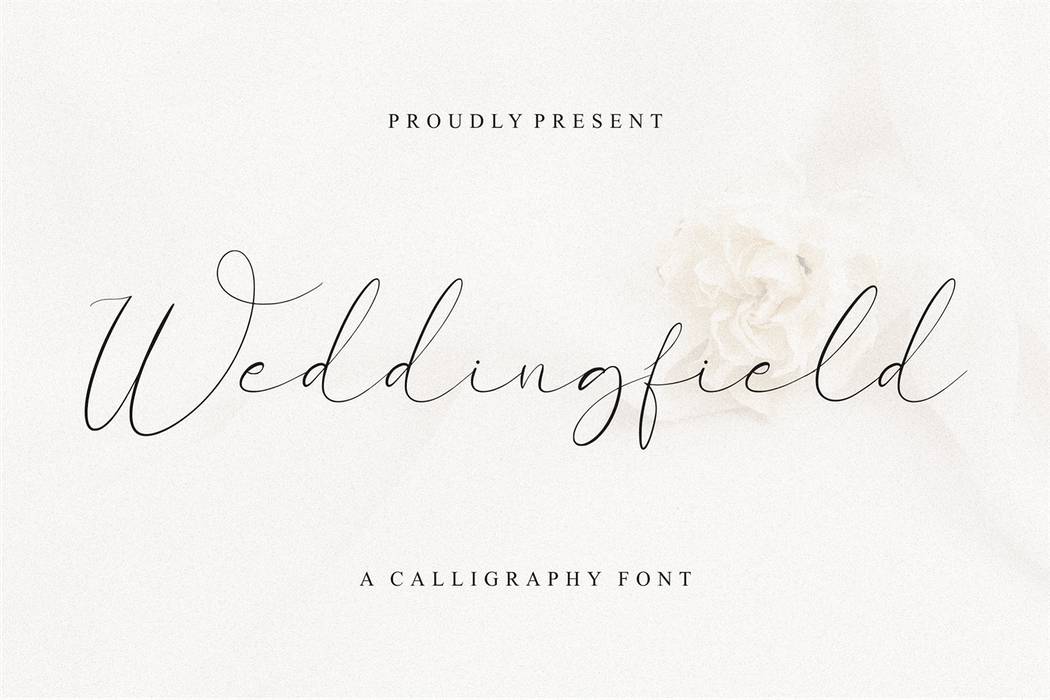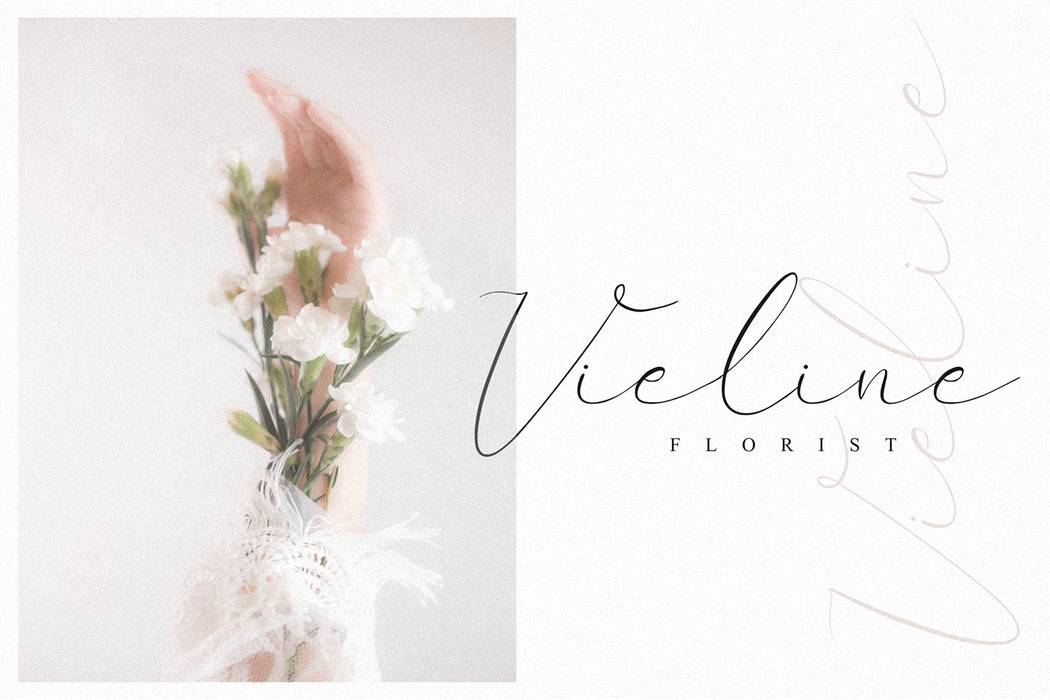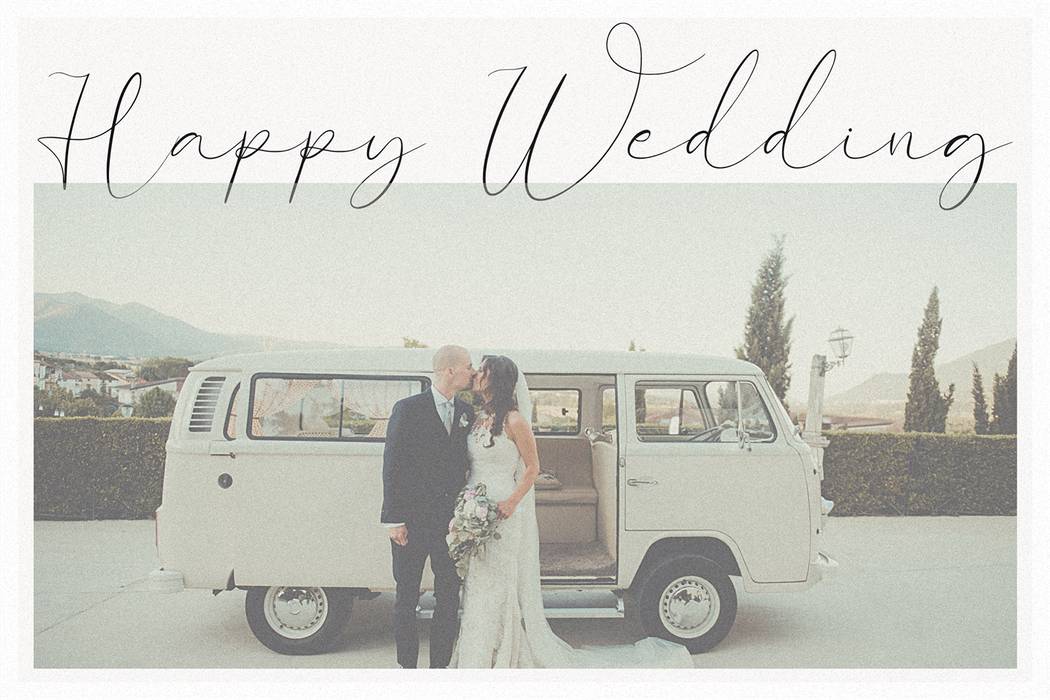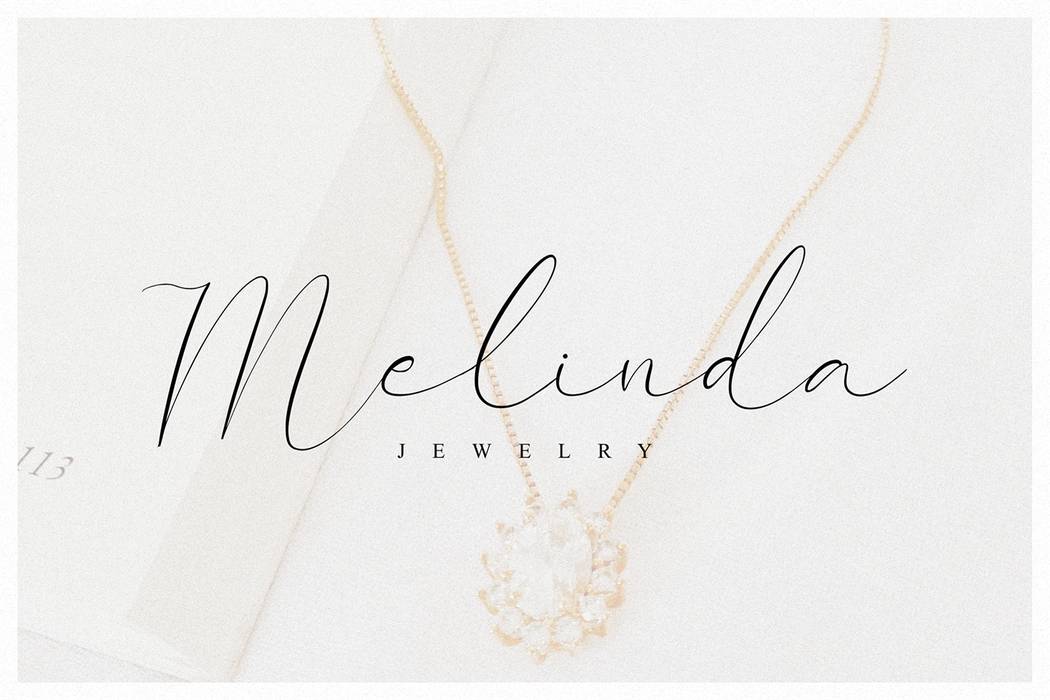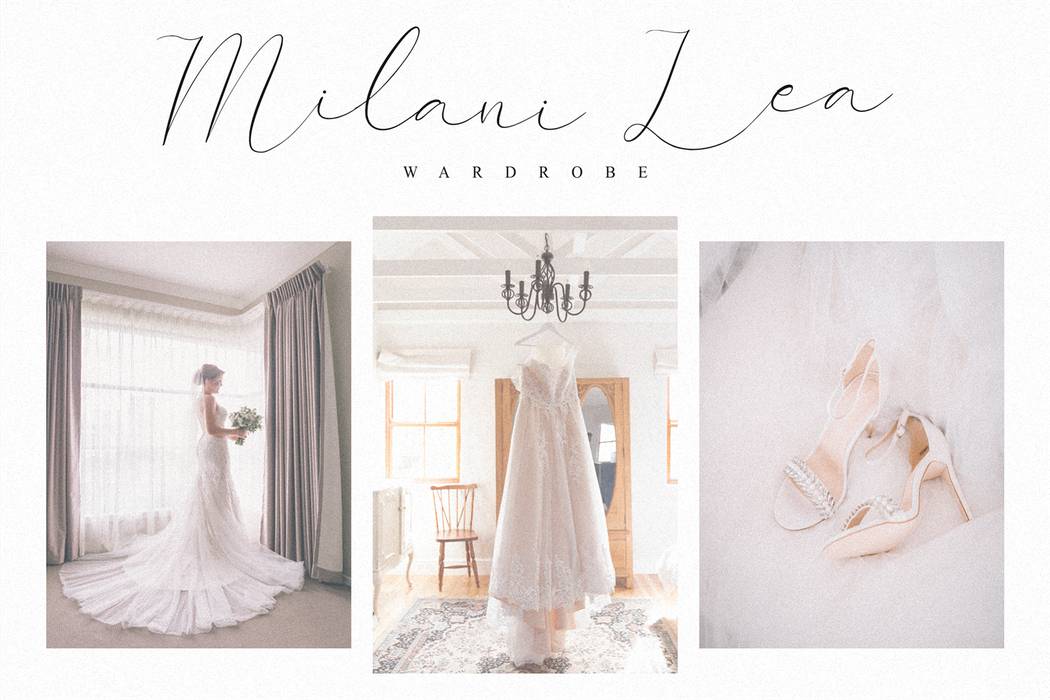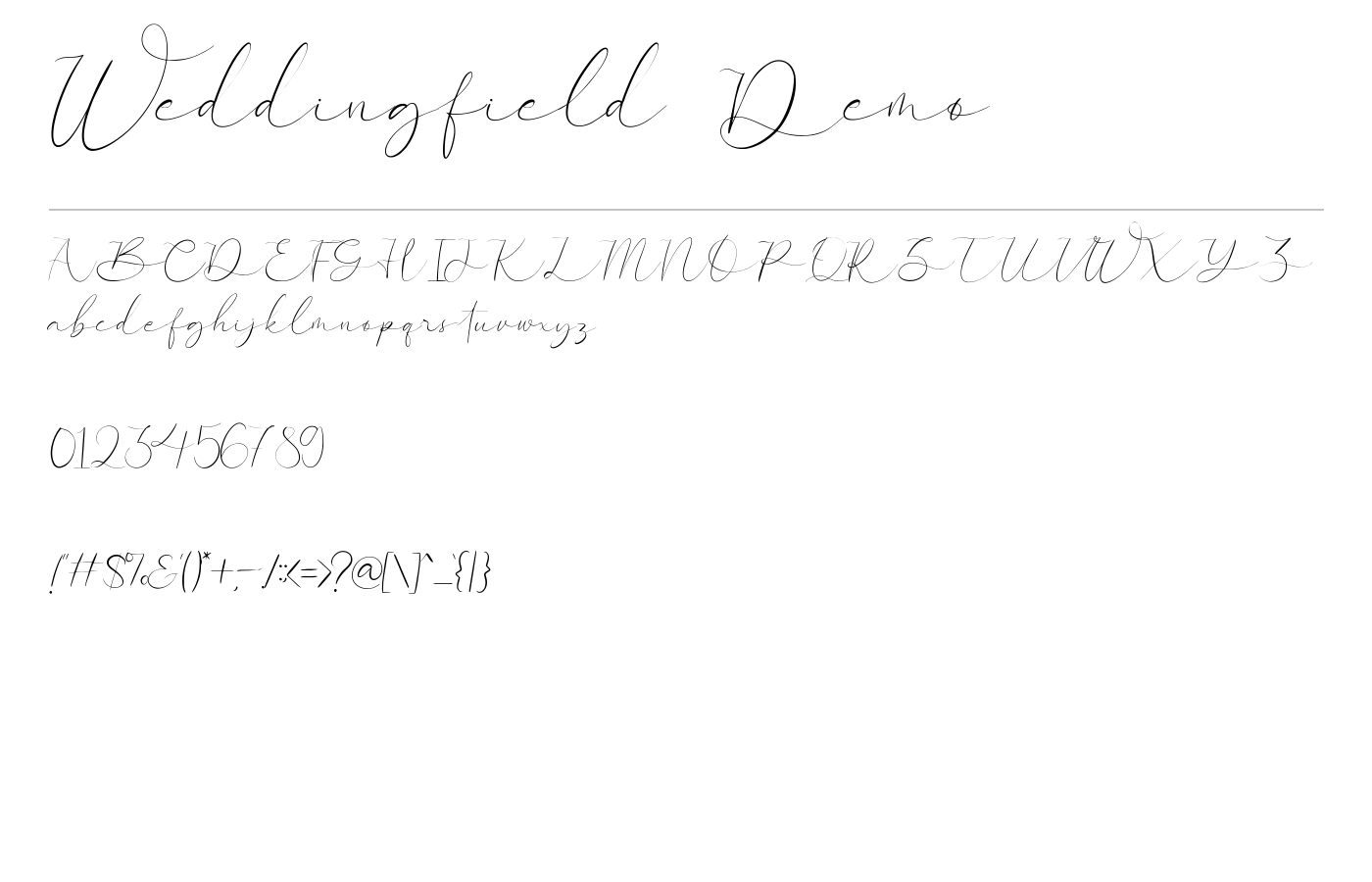
Weddingfield is an elegant and delicate script font featuring thin, flowing strokes that create a graceful and airy feel. With its refined calligraphic style and whimsical swashes, it is perfect for wedding invitations, luxury branding, and romantic designs where a sophisticated and personal touch is desired. This font works beautifully in headlines and decorative accents, adding a sense of charm and elegance to any project.
Weddingfield Font